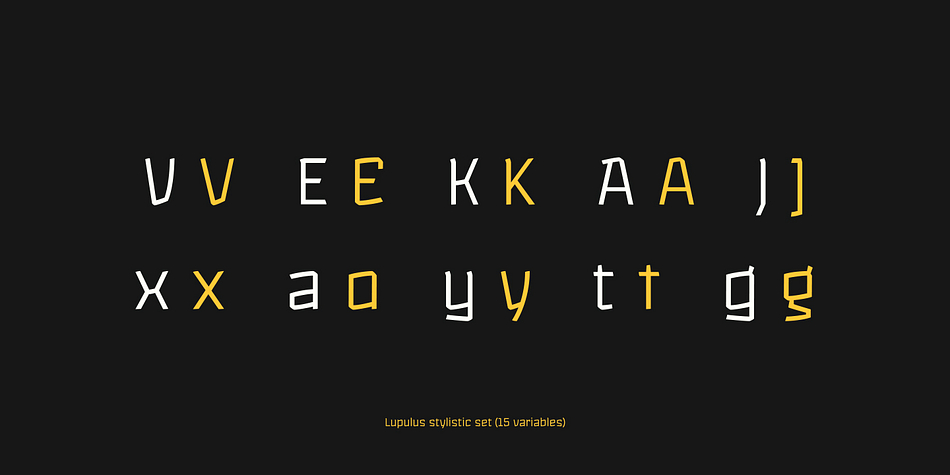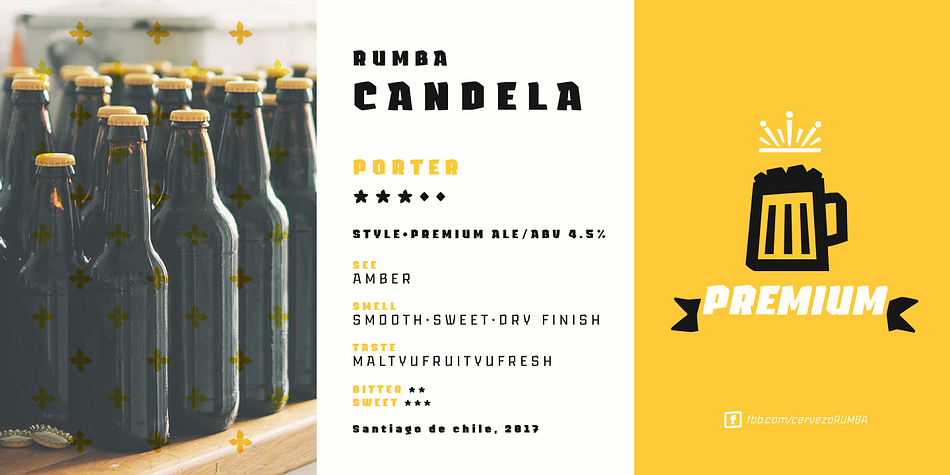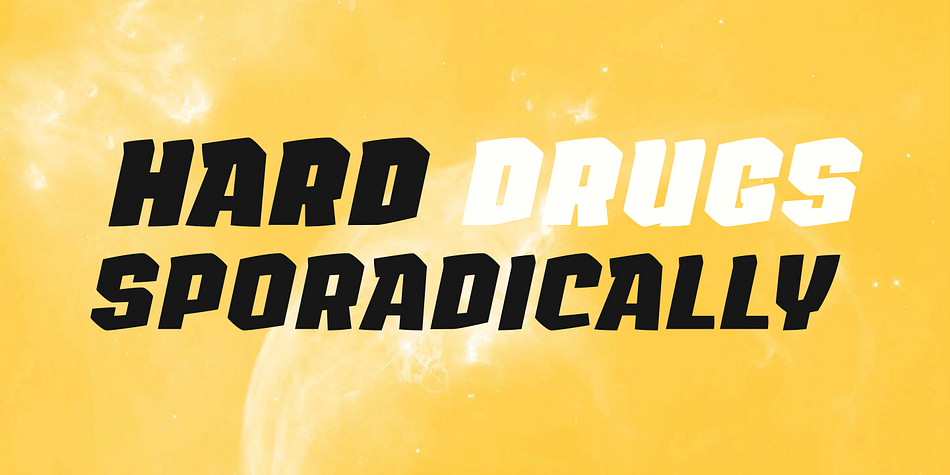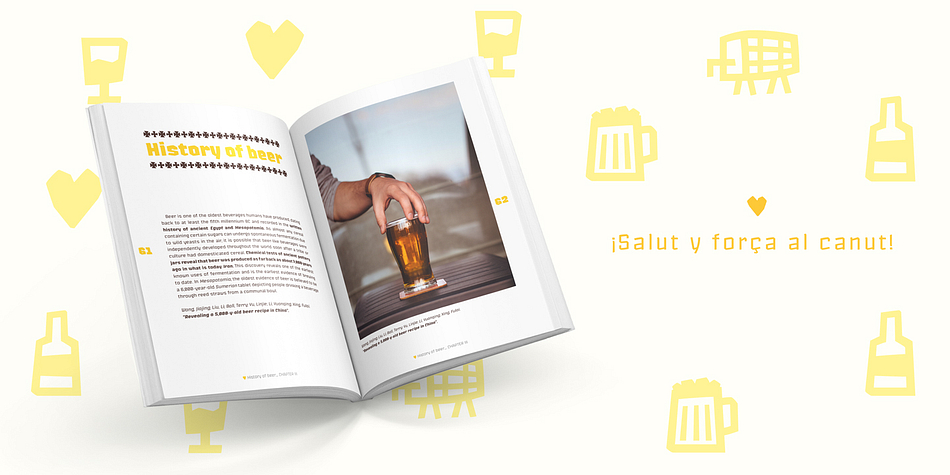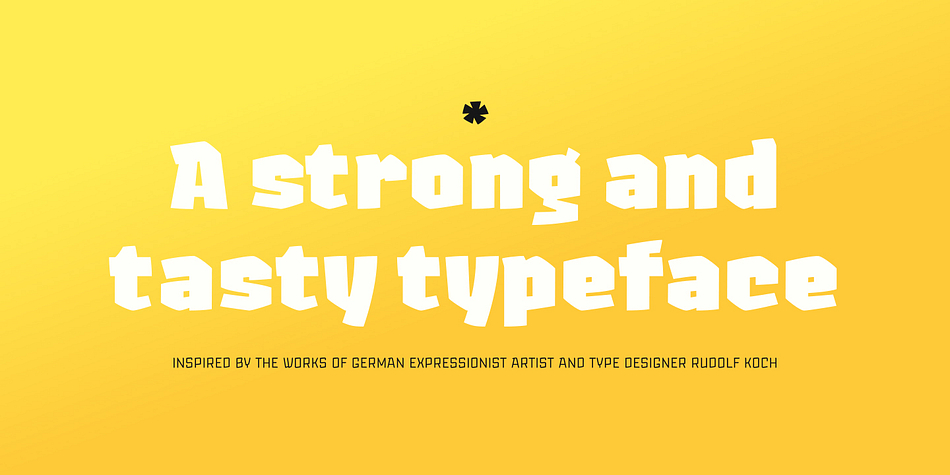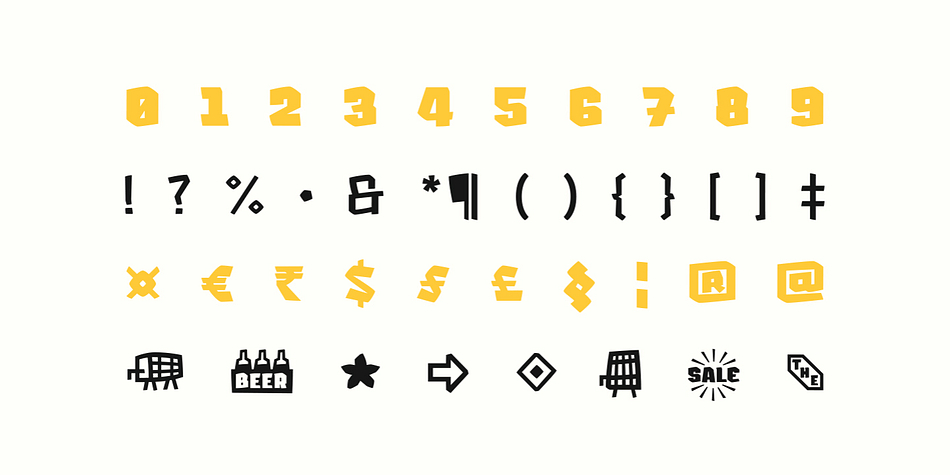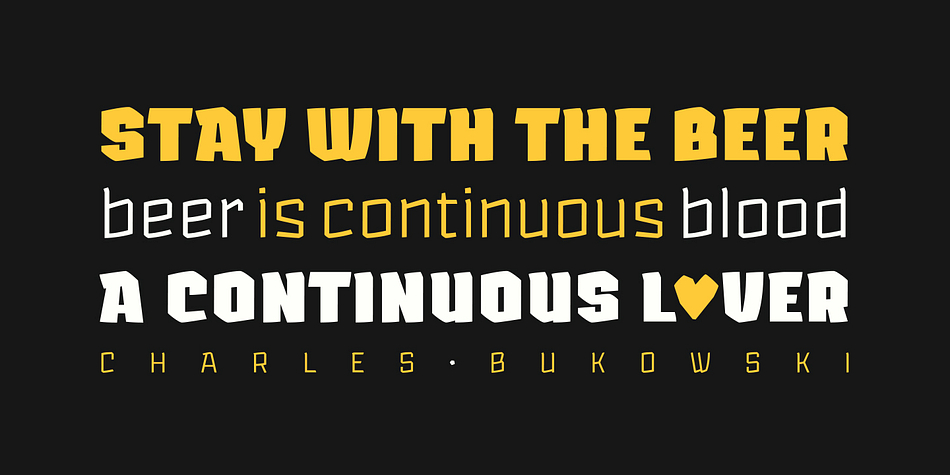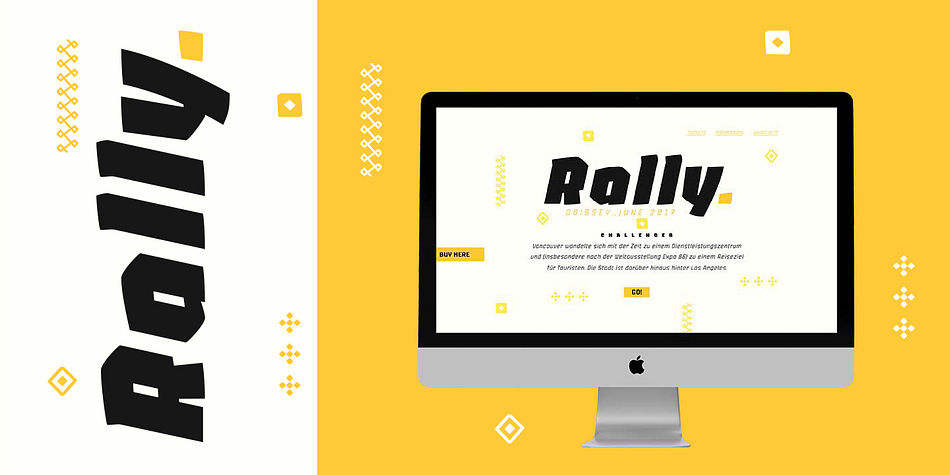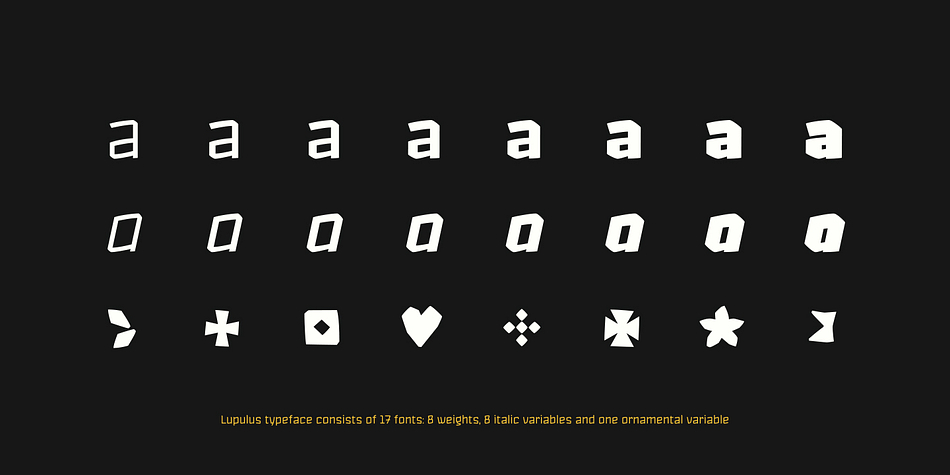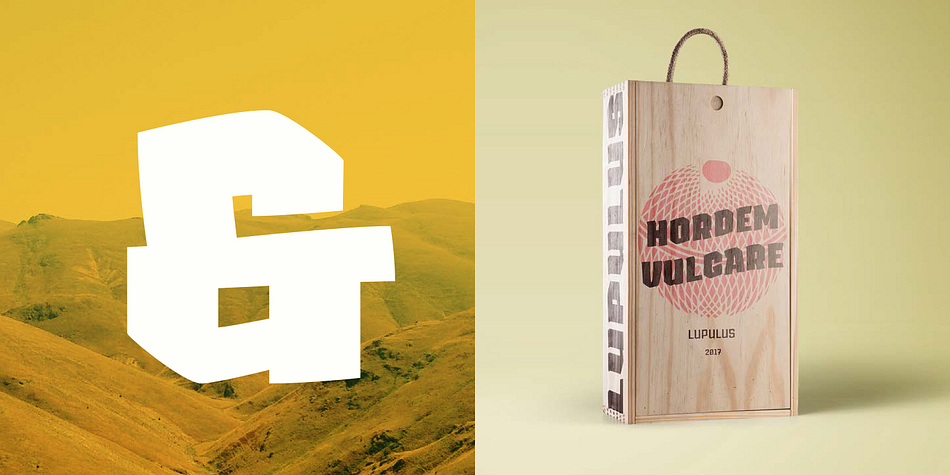
Lupulus
Designed by Patricio Truenos, Lupulus is a display sans and dingbat font family. This typeface has seventeen styles and was published by W Type Foundry.
Lupulus is a typeface inspired by the works of German expressionist artist and type designer Rudolf Koch.
Drawing inspiration from types such as Neuland and Kabel for some of its features, it possesses a gothic and contemporary essence.
Its constant rhythm; strict, solemn, yet boldly exuberant keeps it clean and functional.
Its expressiveness allows for a wide range of uses: short texts, headlines, posters and branding, for which it is exceptionally well-suited.
Lupulus consists of 17 fonts: 8 weights, 8 italic variables and one free ornamental variable.
Featuring alternate characters, it is a comprehensive and versatile set built to suit your design needs.
It comes fully equipped with Opentype for any and all technical requirements.
Displaying the beauty and characteristics of the Lupulus font family.
Highlighting the Lupulus font family.
Lupulus font family sample image.
Lupulus is a a seventeen font family.
Lupulus font family example.
Lupulus font family sample image.
Lupulus features an extra dingbat font.
Lupulus is a seventeen font, dingbat and display sans family by W Foundry.
Lupulus  has extensive OpenType support including 15 additional stylistic sets, Stylistic Alternates and Standard Ligatures giving you plenty of options to allow you to create something truly unique and special.
Lupulus is a typeface inspired by the works of German expressionist artist and type designer Rudolf Koch. Drawing inspiration from types such as Neuland and Kabel for some of its features, it possesses a gothic and contemporary essence. Its constant rhythm; strict, solemn, yet boldly exuberant keeps it clean and functional. Its expressiveness allows for a wide range of uses: short texts, headlines, posters and branding, for which it is exceptionally well-suited.
Lupulus consists of 17 fonts: 8 weights, 8 italic variables and one free ornamental variable.
Featuring alternate characters, it is a comprehensive and versatile set built to suit your design needs. It comes fully equipped with Opentype for any and all technical requirements.